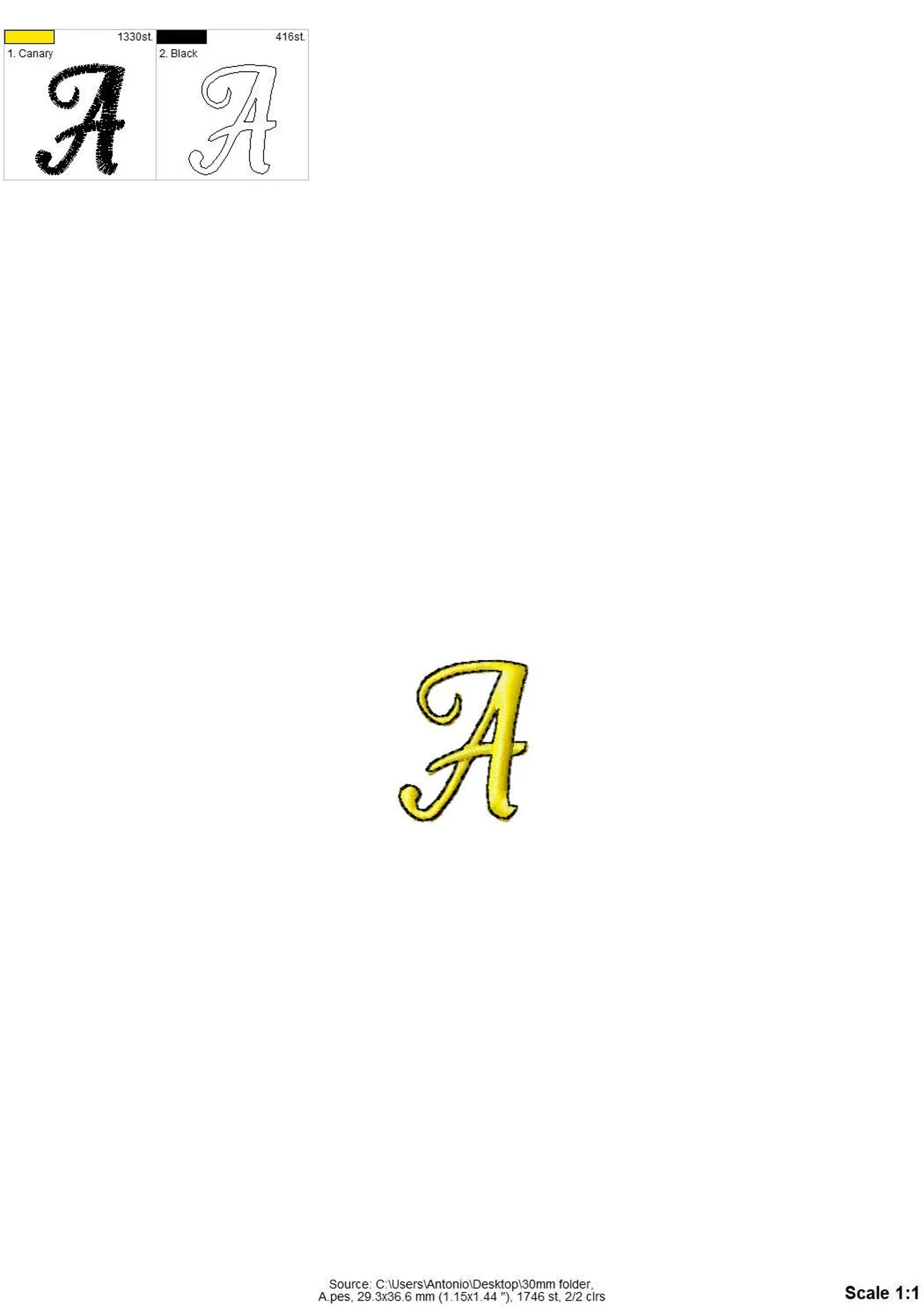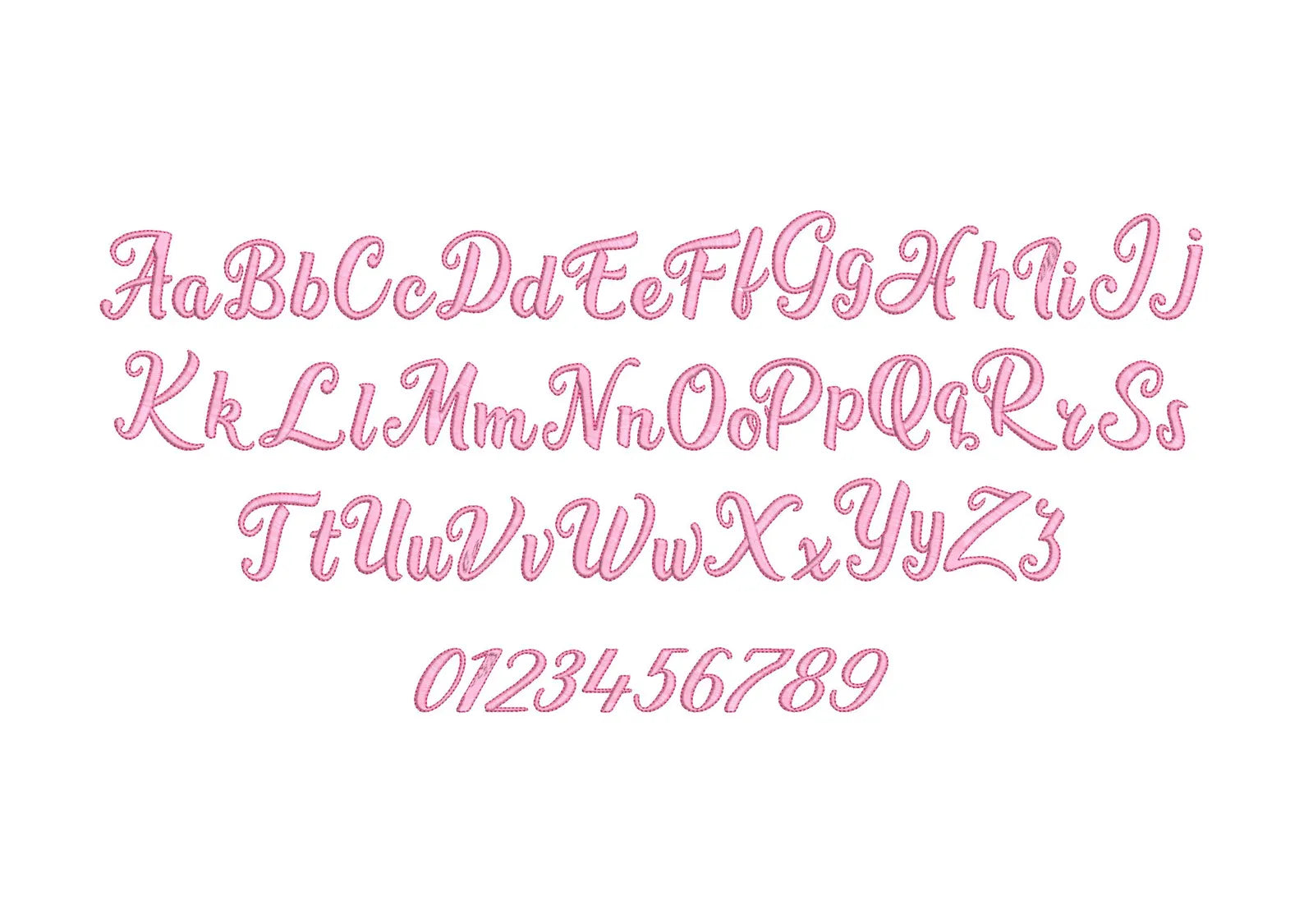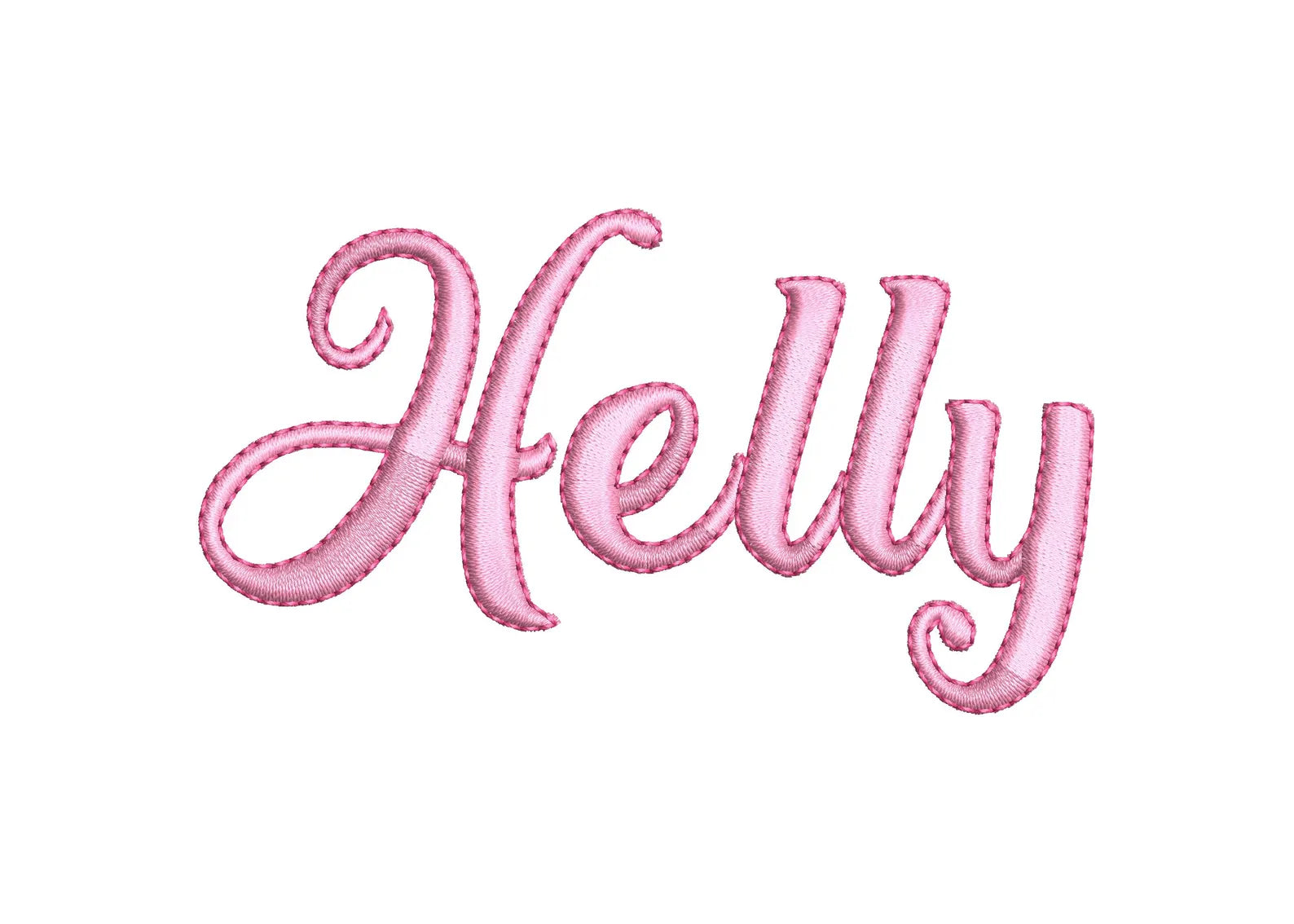
Or click to open the linkHelly, a delicate curly handwritten font in satin stitch with a bean outline. Classy for names, monograms and gifts.
Uppercase and lowercase letters and numbers 0 to 9 in eight sizes: 0.7, 1, 1.2, 1.4, 1.6, 1.9, 2.4 and 2.8 inches.